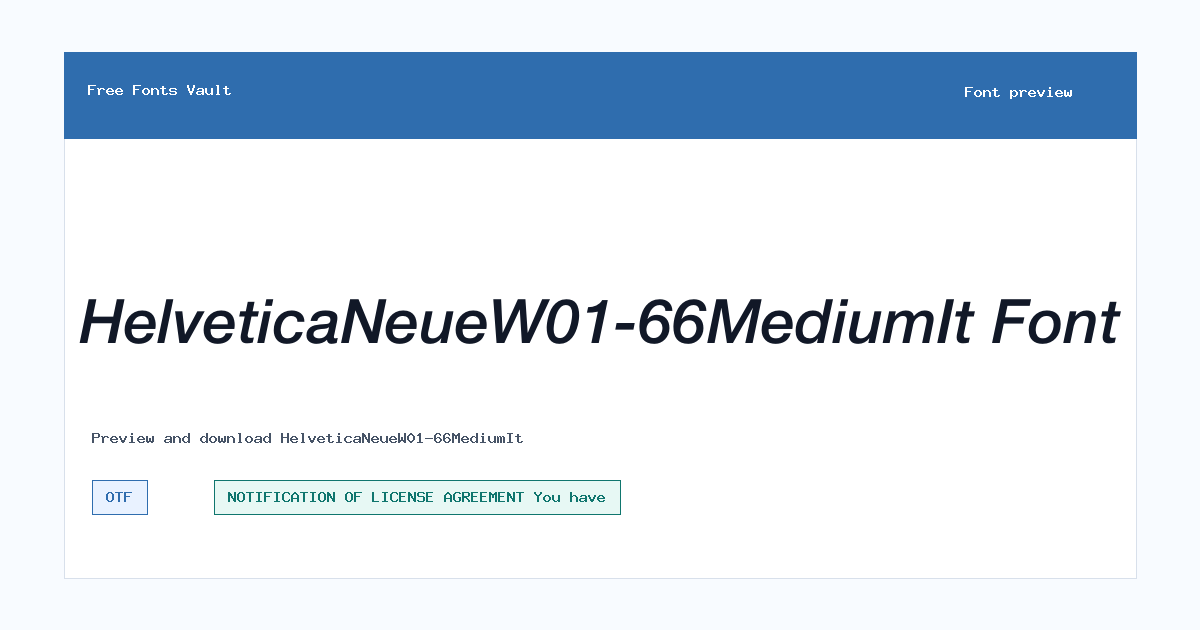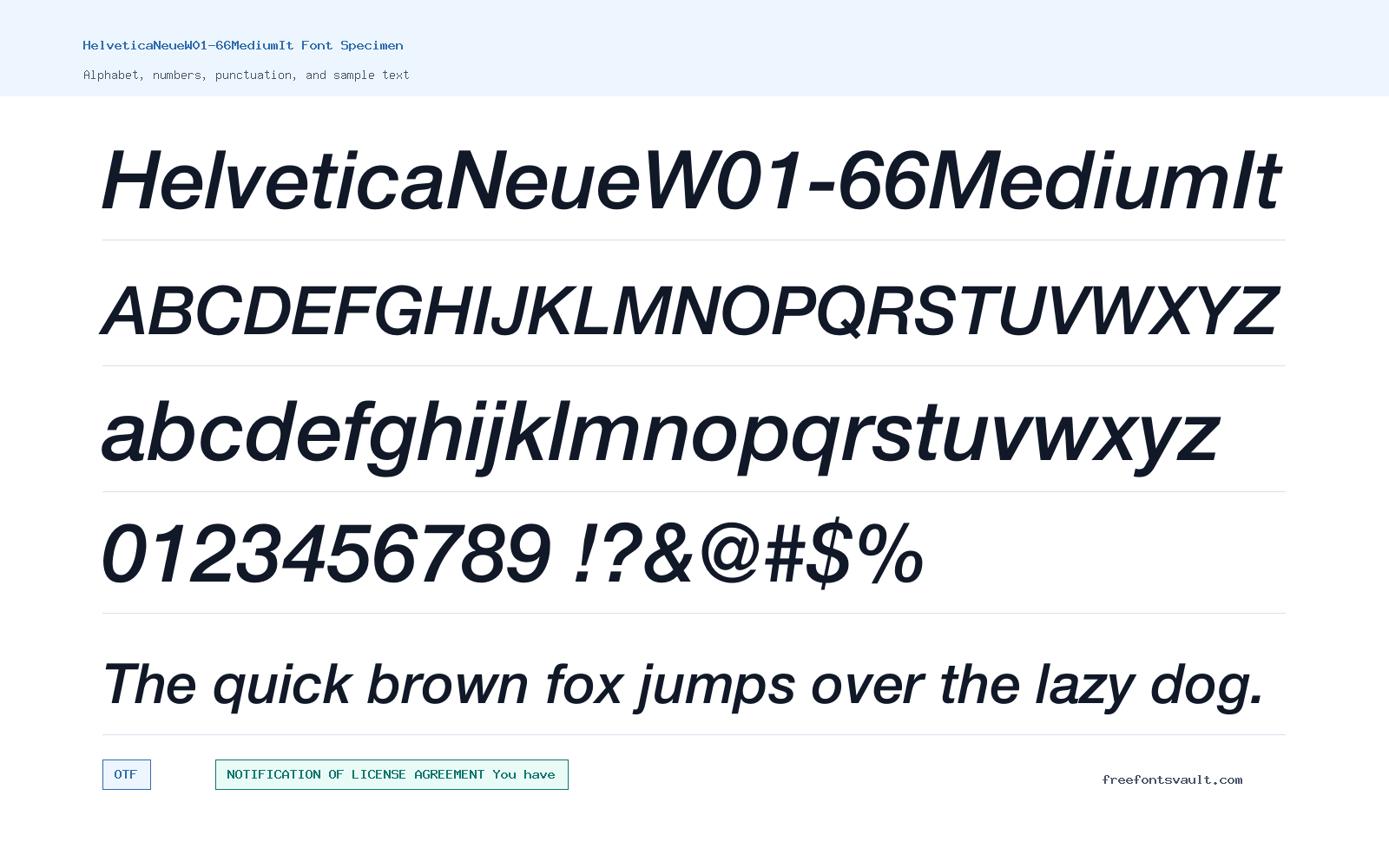
HelveticaNeueW01-66MediumIt
- Designer Linotype Design Studio
- Foundry Linotype GmbH
About Helvetica Neue W01 66 Medium Italic
Helvetica Neue W01 66 Medium Italic has the practical character of a clean sans serif with an italic angle. The medium weight gives it more presence than a light italic while still keeping a restrained, text-friendly look. It can work well when you need emphasis without moving into a decorative style.
Use the preview to test short words, mixed case, numbers, and punctuation before deciding where it fits. Italic sans serif fonts are often strongest in short supporting text, labels, captions, interface notes, pull quotes, or emphasis inside a larger typography system. For long paragraphs, test line spacing and size carefully, because italic styles can feel tighter and less calm than upright text.
The italic angle is the main reason to choose this cut instead of an upright Helvetica Neue style. It can add a quiet change of tone for annotations, subheads, and short notes while keeping the overall design clean. Compare it beside your regular text face in the preview, because medium italic strokes can look darker or tighter when placed inside dense layouts.
- Medium-weight italic style based on the Helvetica Neue W01 naming
- Medium italic cut for controlled emphasis inside clean sans serif layouts
- Short emphasis text, labels, captions, and interface notes
- Clean editorial layouts, presentation text, and restrained headline accents
- Pull quotes, captions, annotations, and short supporting lines
Designer information names Linotype Design Studio, with Linotype GmbH listed as the foundry.
Try it at the exact size you plan to use. It should be tested with uppercase, lowercase, numbers, and punctuation, especially if you want to use it for UI labels, captions, or brand-style text. Pair it with a clear upright sans serif for body copy when readability matters. Use it sparingly for emphasis. If every label or paragraph is italic, the effect becomes harder to read and the useful contrast disappears.
Who designed Helvetica Neue W01 66 Medium Italic?
The designer information names Linotype Design Studio, and the foundry is listed as Linotype GmbH.
What is this font best used for?
It is most useful for short italic text such as emphasis, captions, labels, pull quotes, and clean layout accents. Test it in the preview before using it for long reading text.